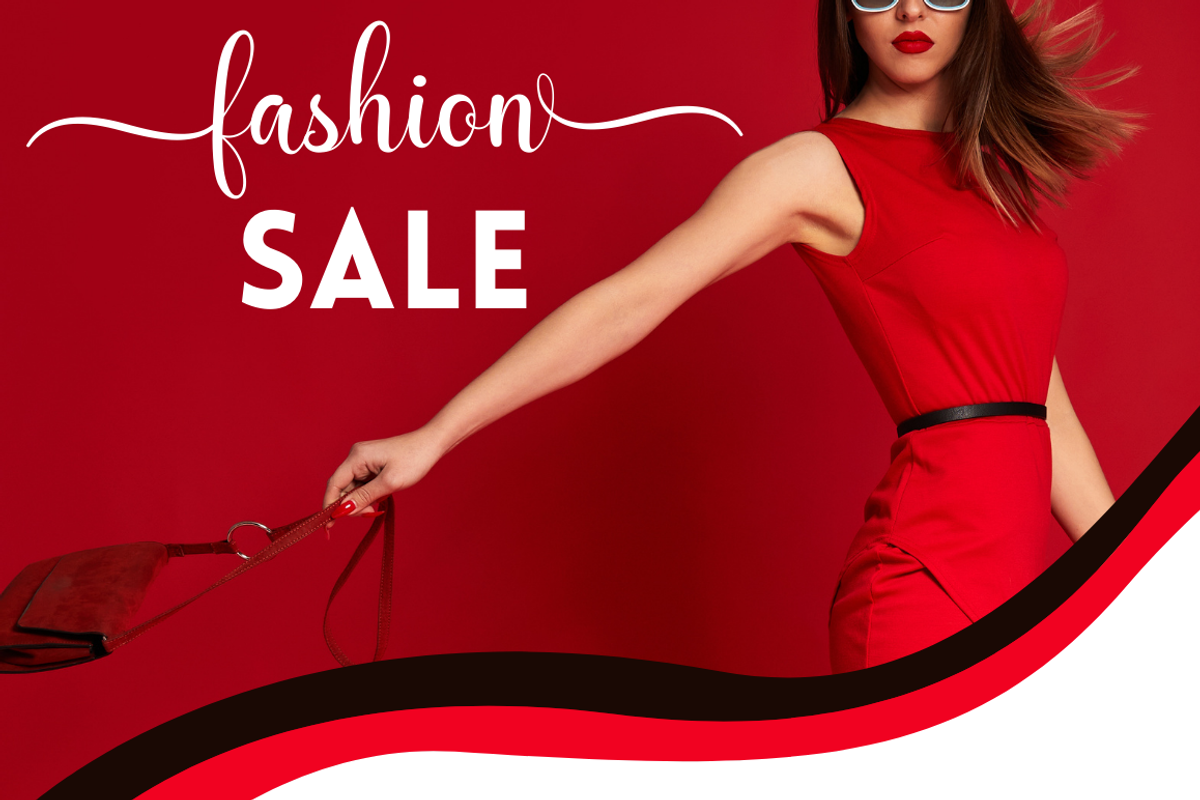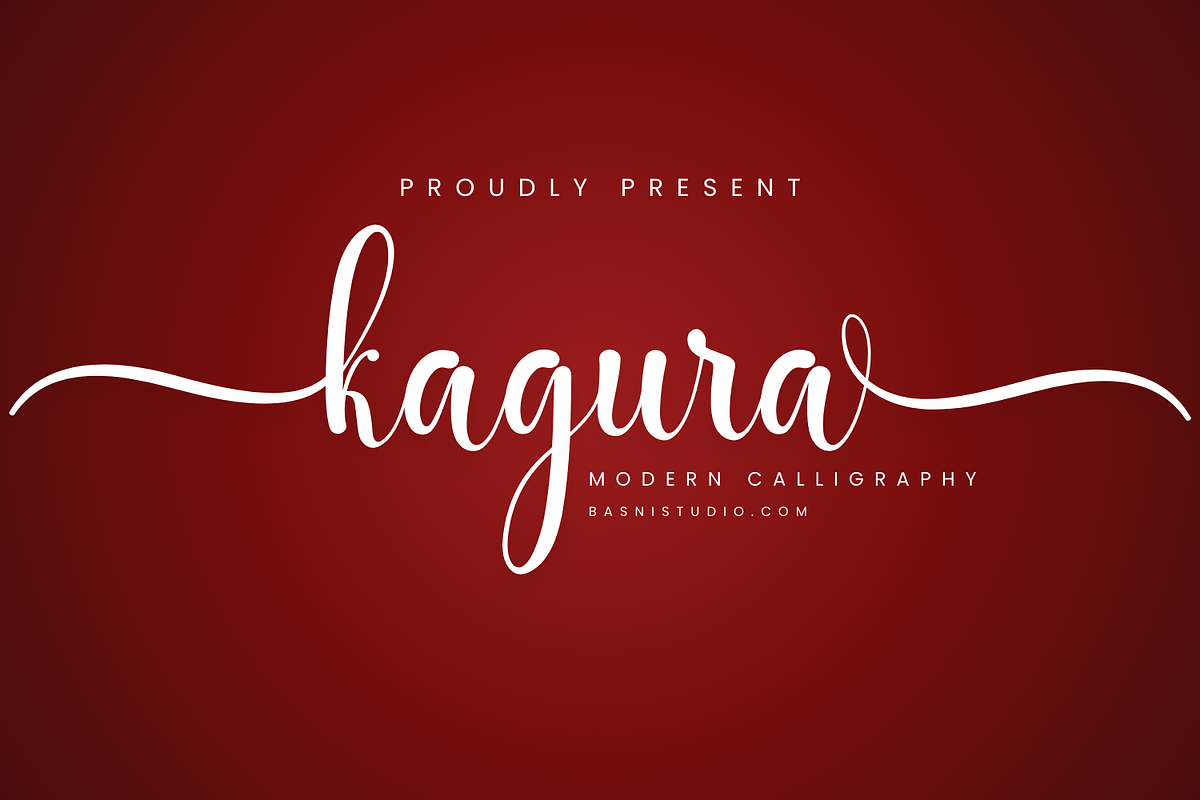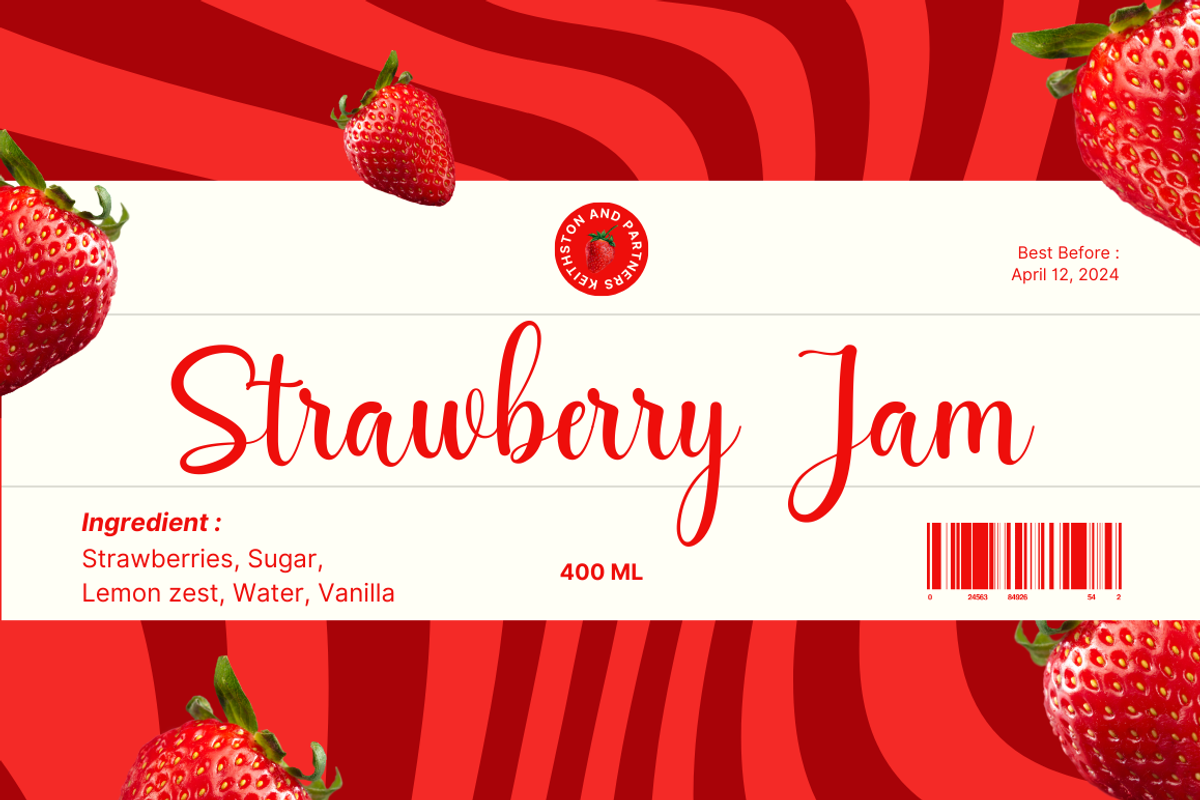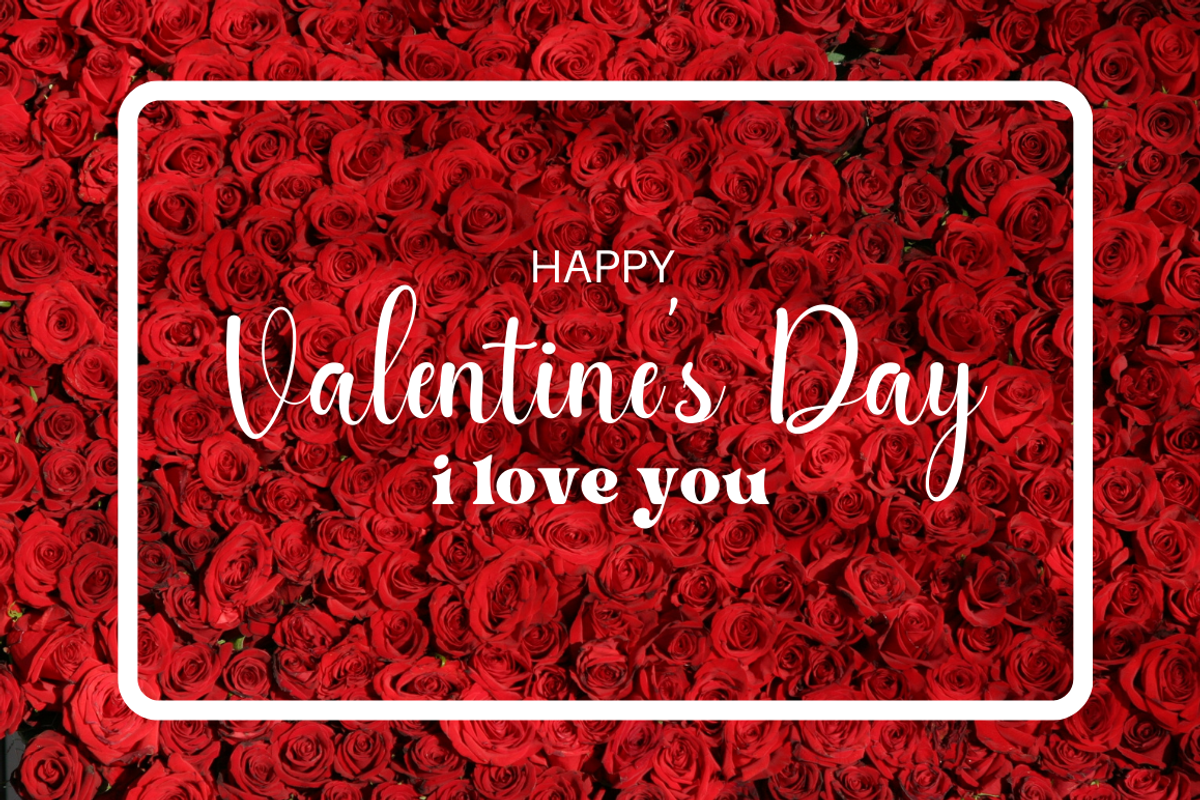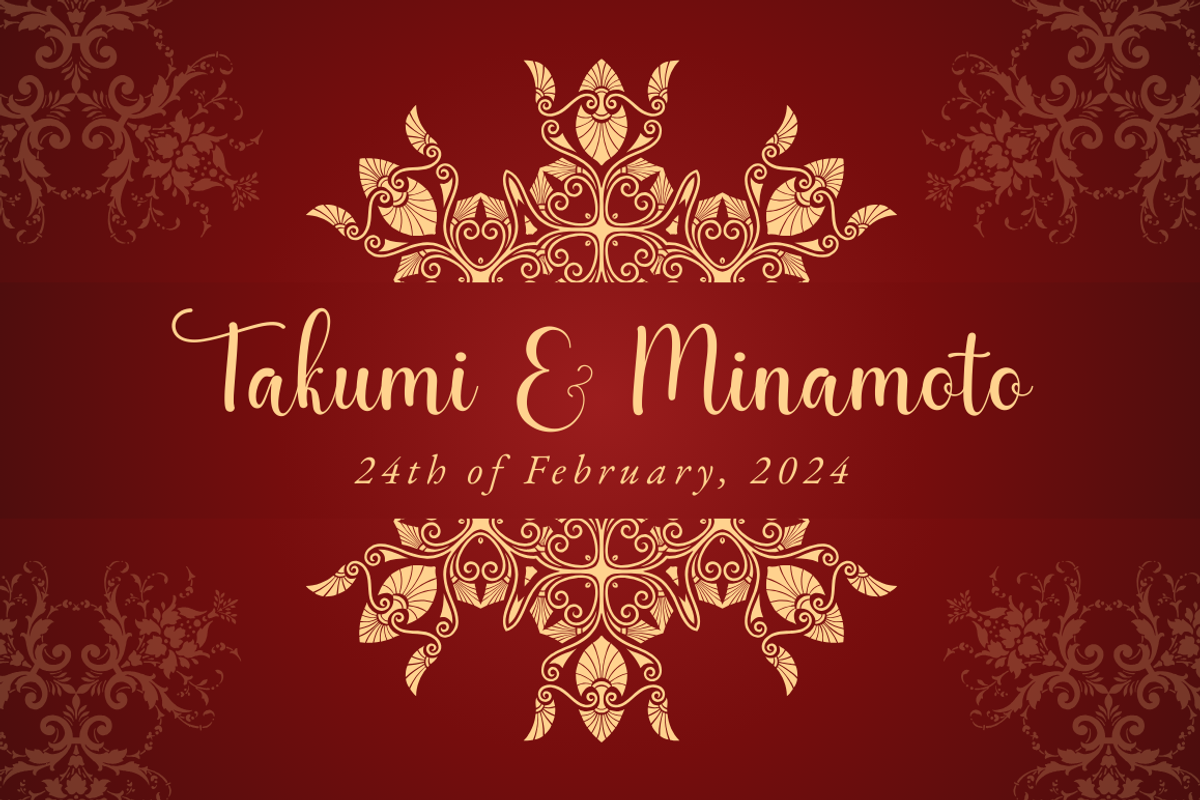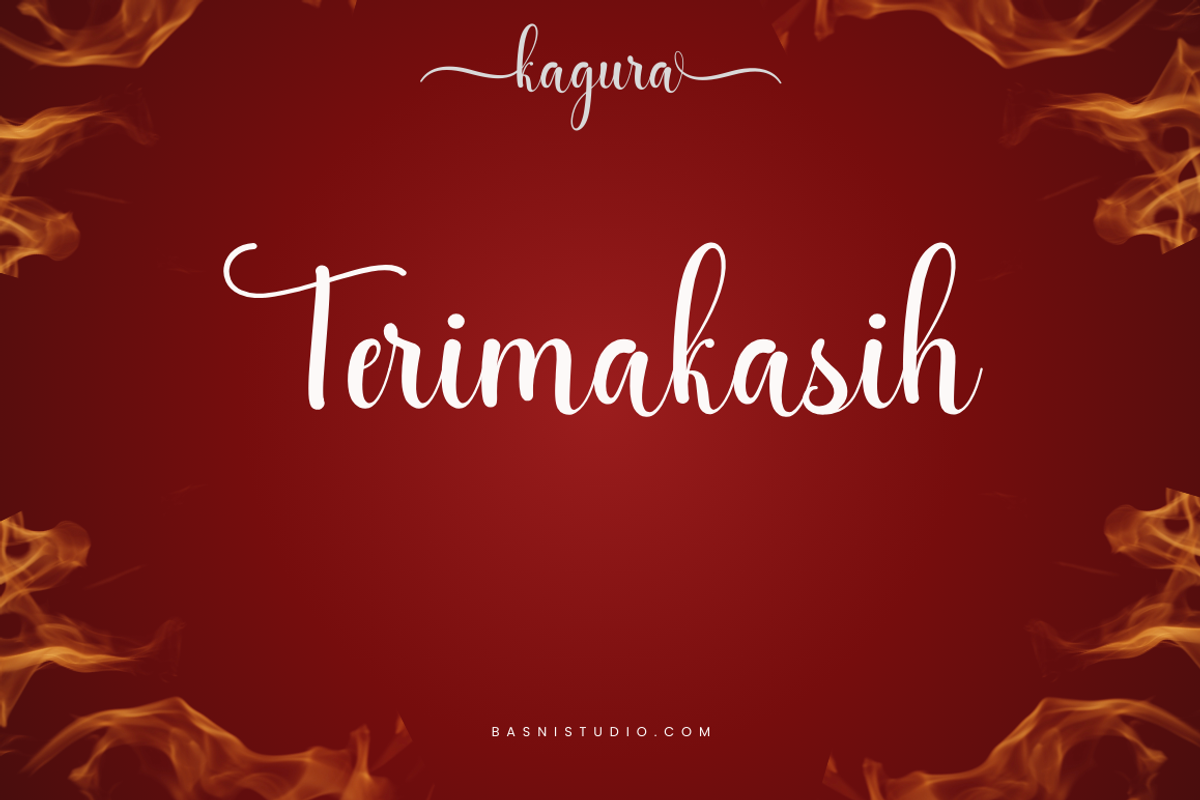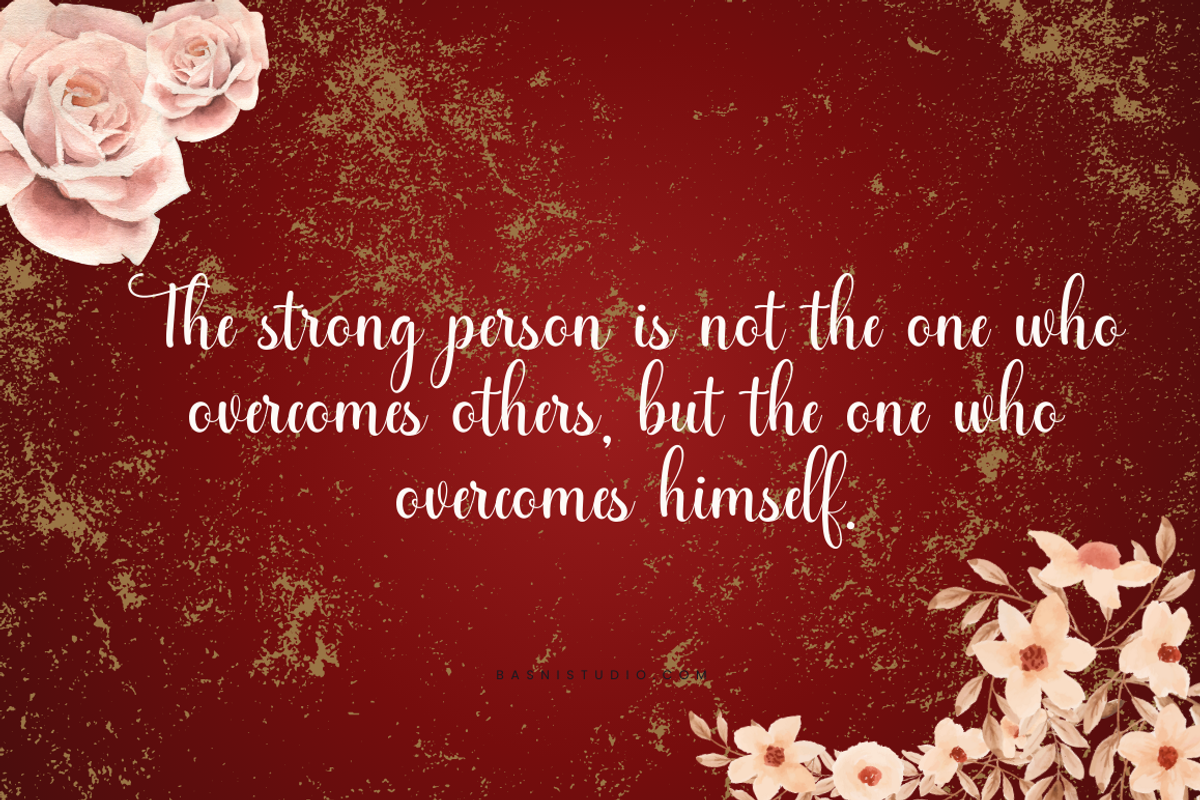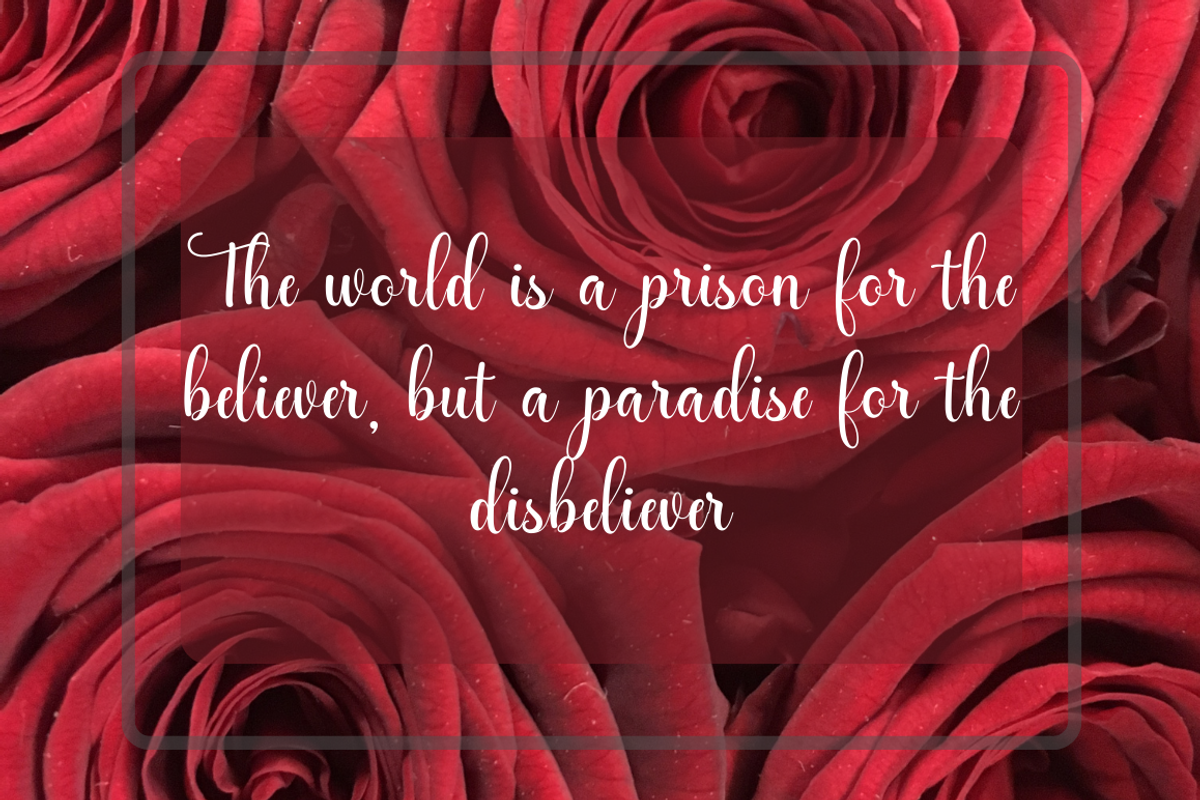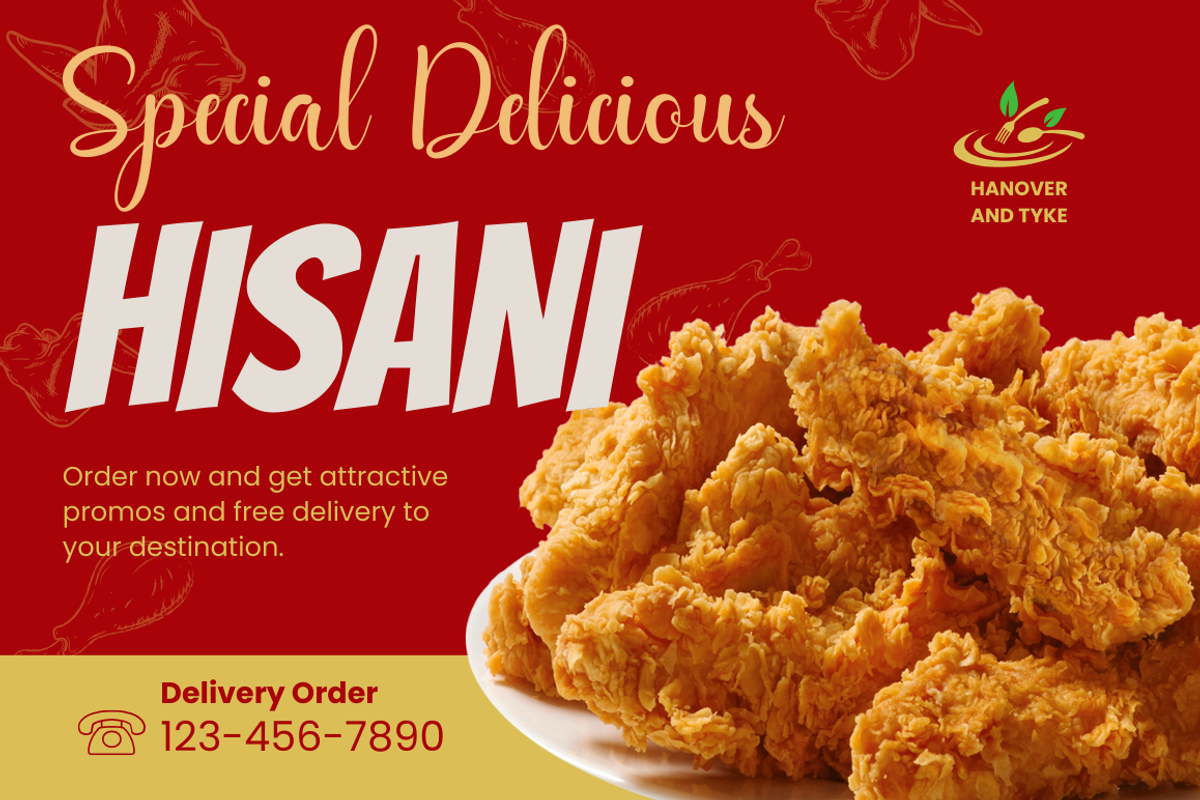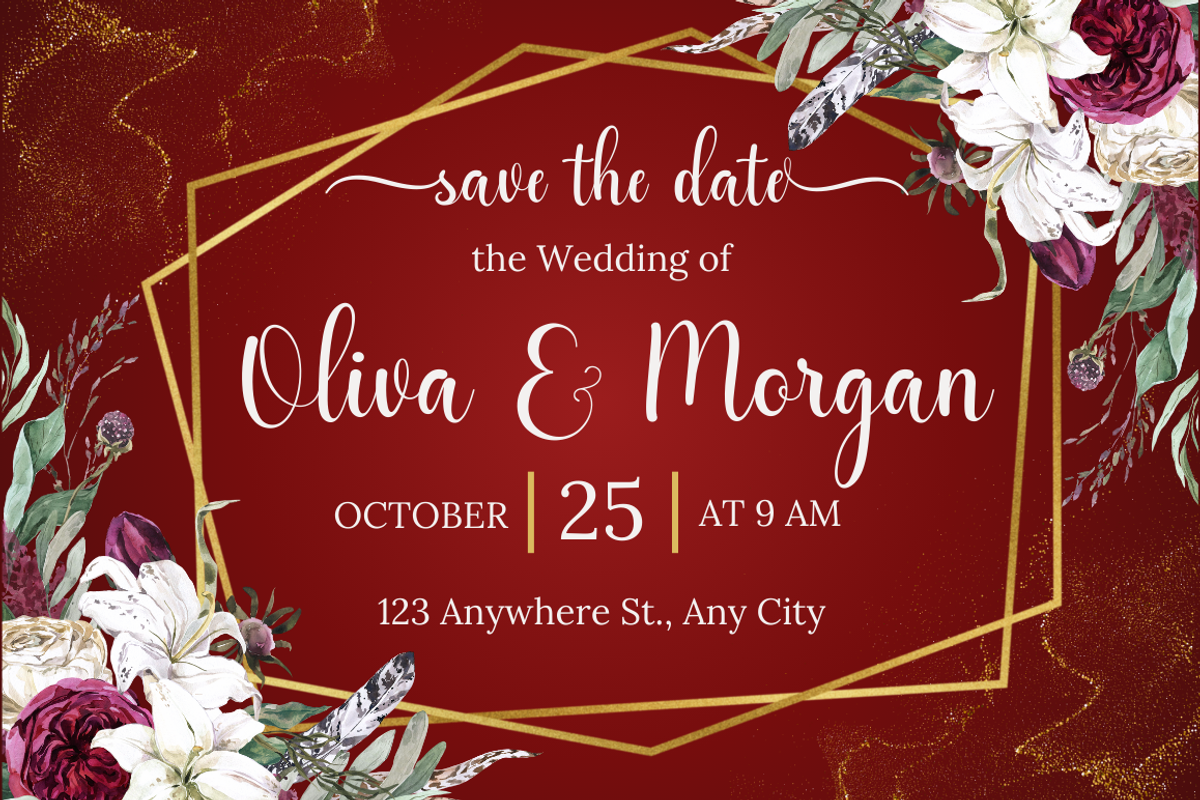
Kagura Modern Calligraphy
Introducing Kagura Modern Calligraphy
Kagura Modern Calligraphy Font, made with Naturaly & precision, perfect for branding, websites, and editorial designs. Includes all Characters letters, multilingual support, punctuation, binding. everything can be easily accessed using software that supports OpenType. What’s include: